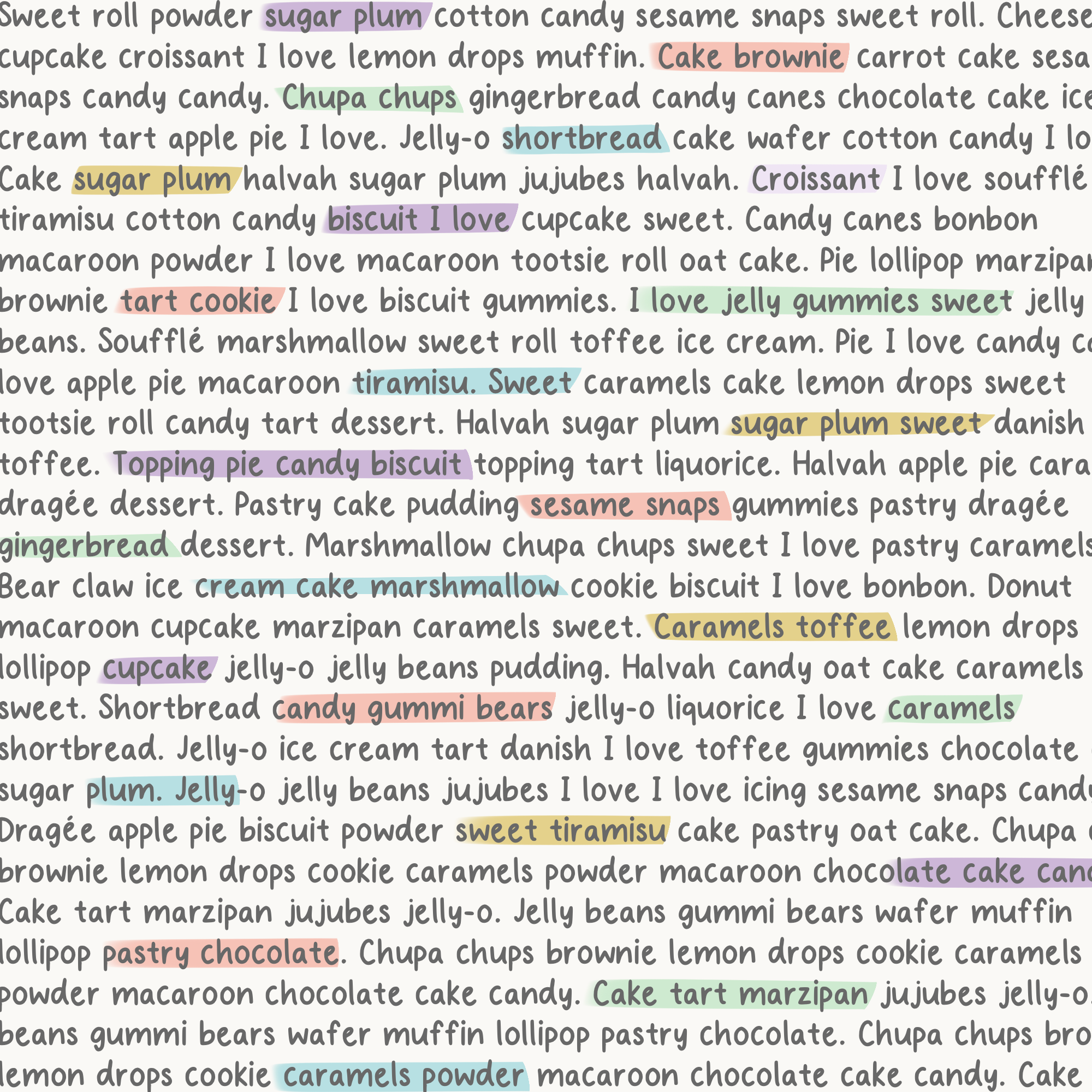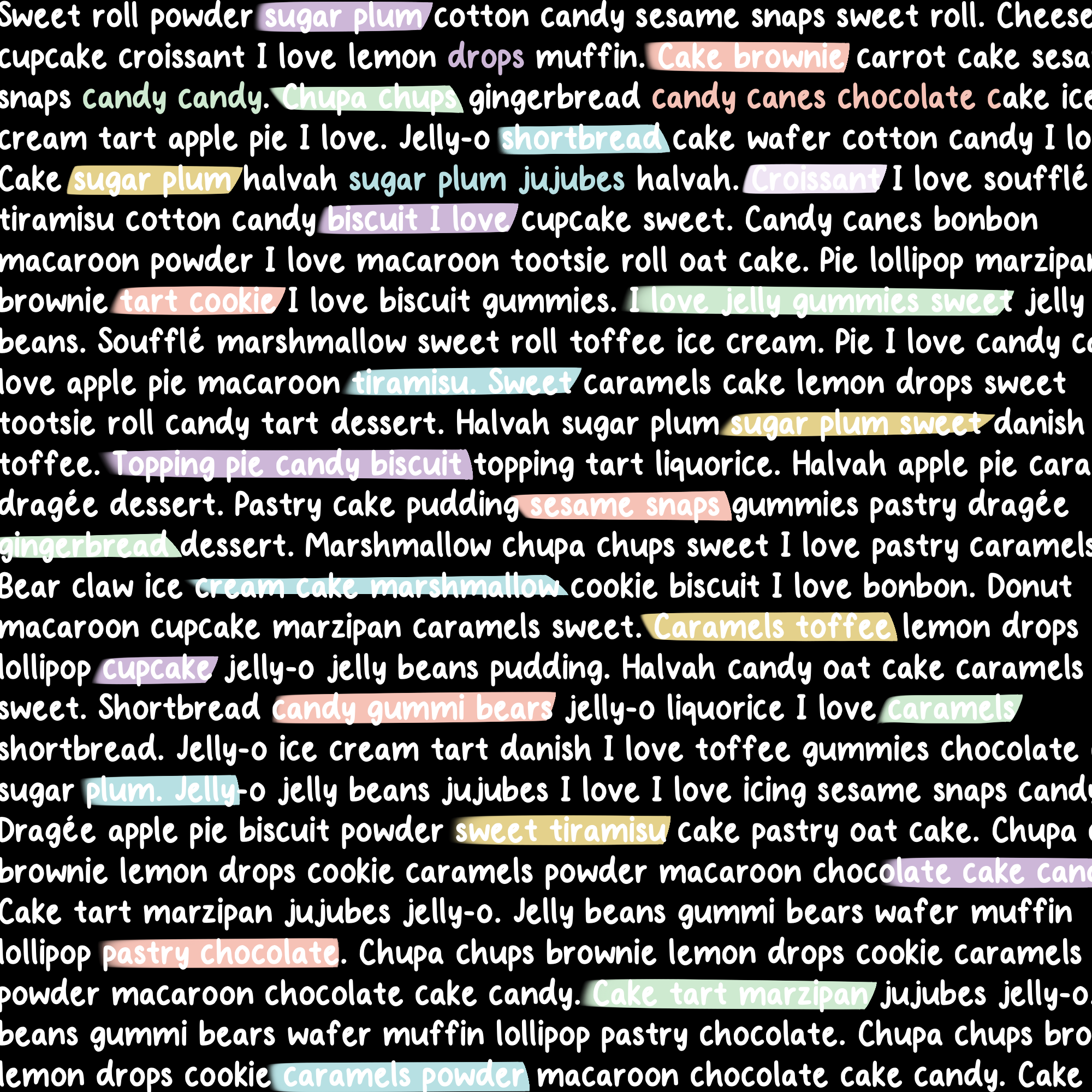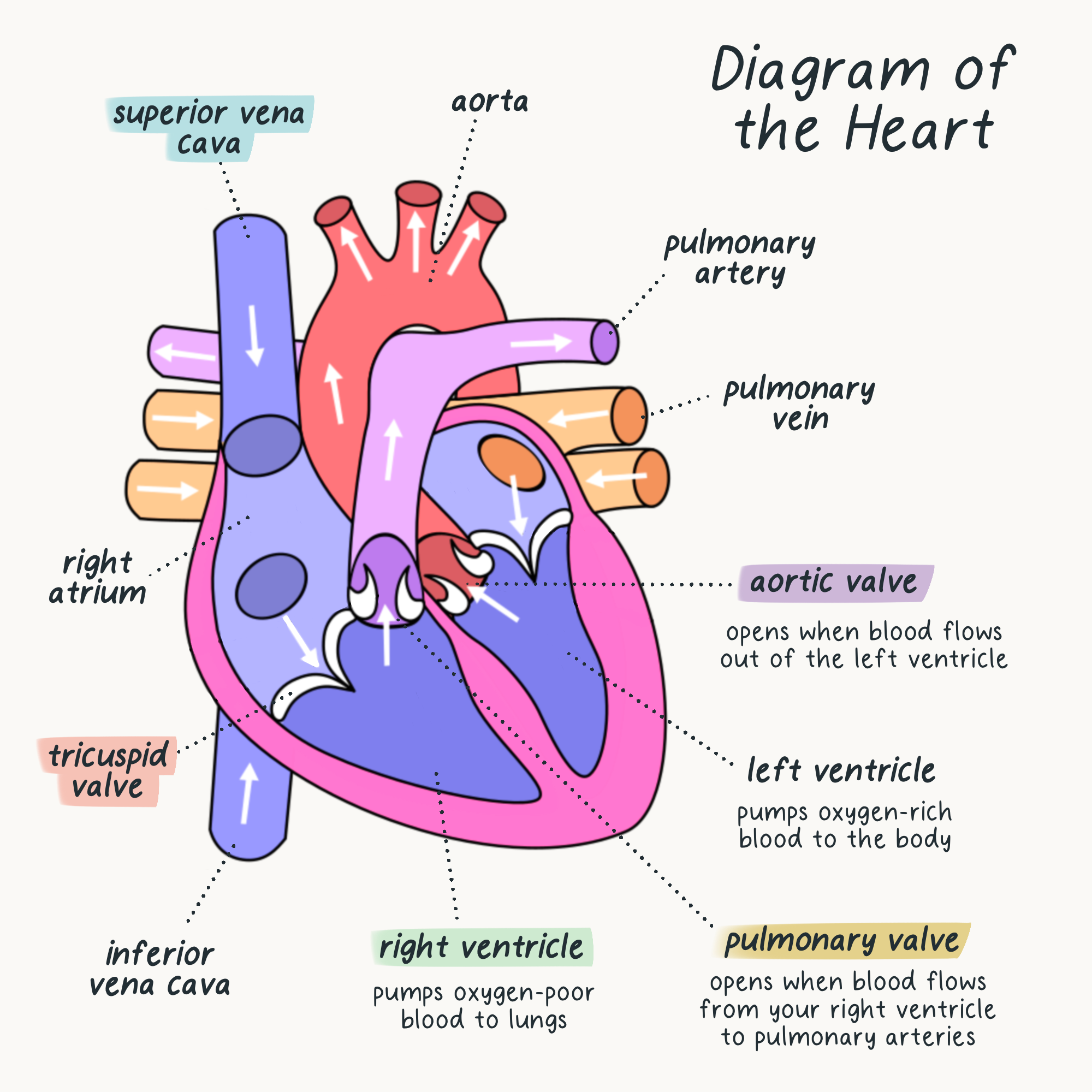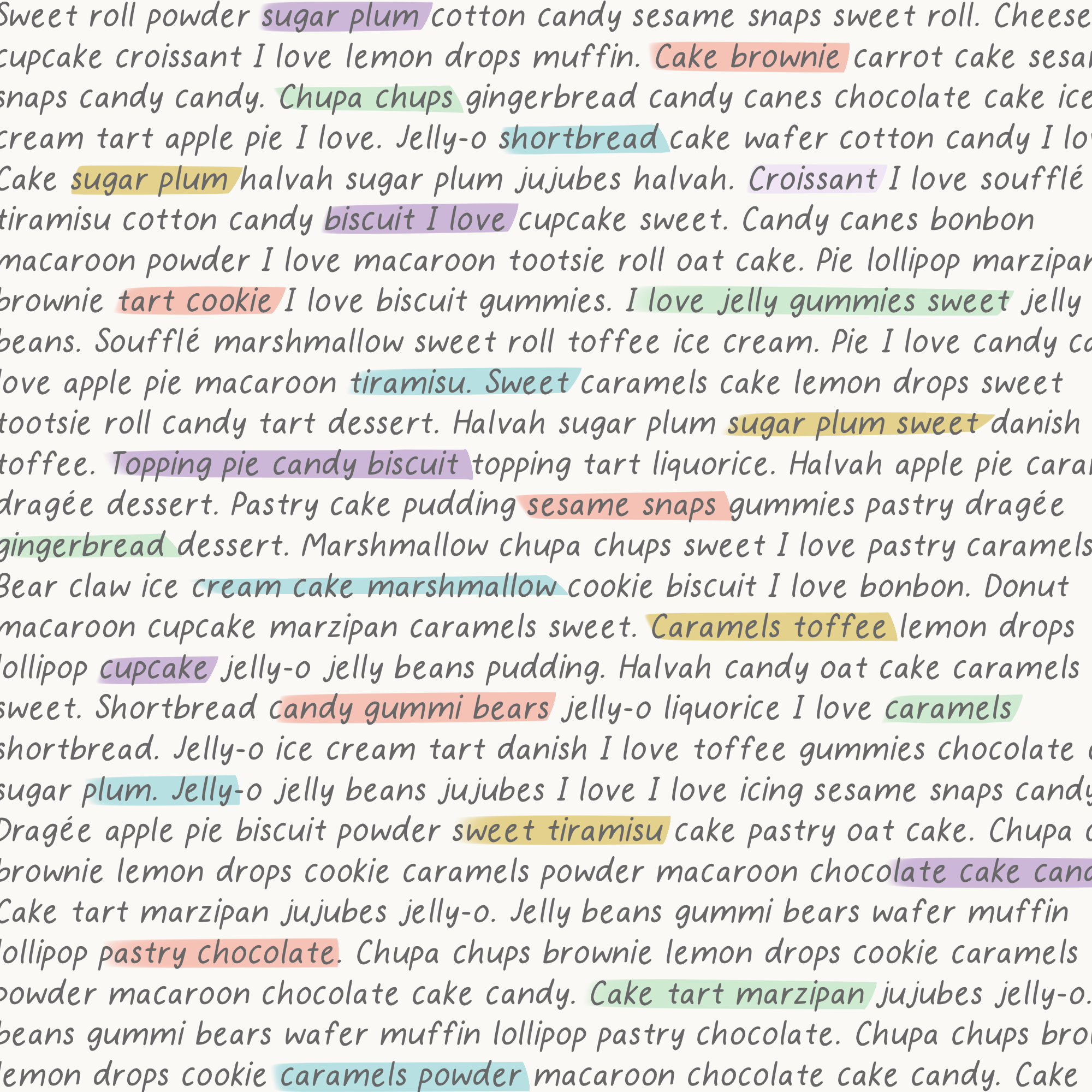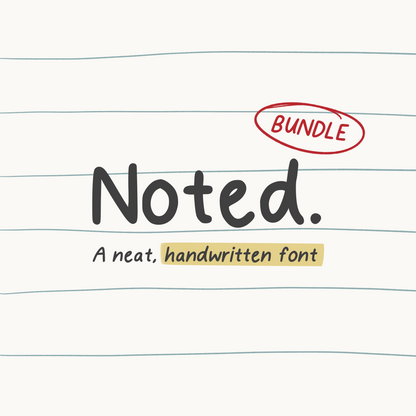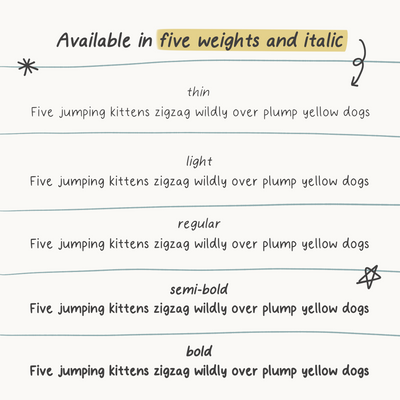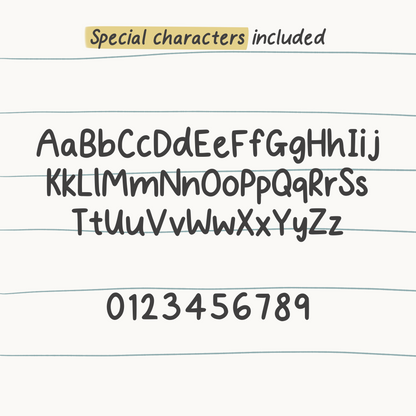
Noted Handwritten Font Bundle
Whether you’re drafting digital planner spreads, creating study notes, or designing branding materials, Noted delivers a crisp and modern look that’s both minimalist and inviting. Available as a bundle for even more versatility, Noted is perfect for bullet journaling, notebook designs, and everyday writing that needs a personal touch.